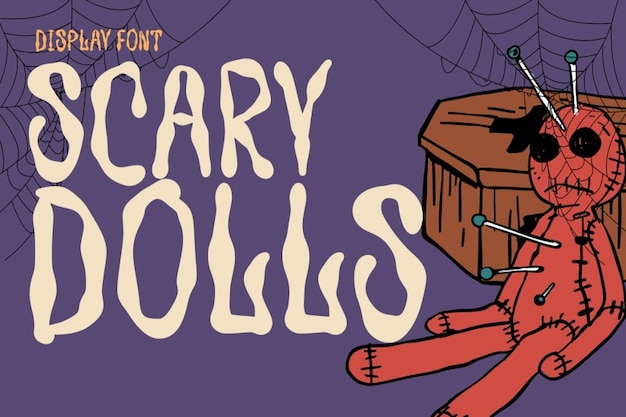
Scary Dolls Font
Scary Dolls is the font that sends shivers down your spine, perfect for all things horror and Halloween. Its eerie, hair-raising style is like the stuff of nightmares. Each letter is infused with spine-tingling fear, making it ideal for crafting blood-curdling posters, bone-chilling party invites, or anything that requires a truly terrifying touch. Scary Dolls is like the font that creeps into your text, transforming it into a spine-chilling nightmare. With a touch of horror and a dash of Halloween spirit, it's ready to give your designs that hair-raising, bone-chilling vibe that'll have you sleeping with the lights on.